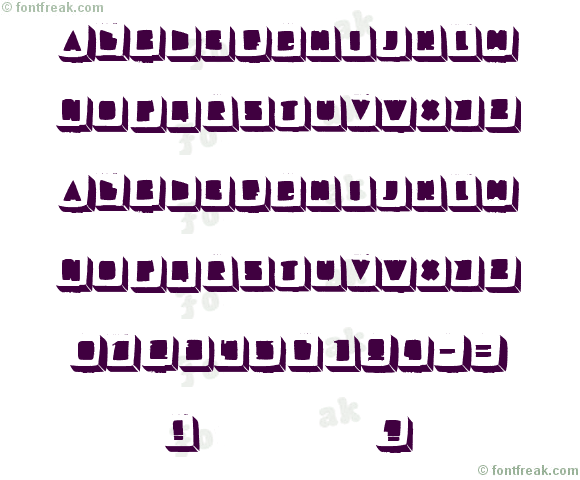
LaTortue
Discover the LaTortue font by Maelle.K, a distinctive display typeface that exudes a playful yet modern charm. This font is characterized by its bold, chunky letterforms that feature a unique three-dimensional effect, giving it a dynamic presence on the page. The stroke weight is consistent throughout, with subtle contrasts that enhance visibility while maintaining an approachable aesthetic. The spacing is generous, allowing each character to breathe, which contributes to its legibility.
LaTortue shines in various creative contexts. Its vibrant personality makes it an excellent choice for wedding invitations, where it can convey warmth and celebration. Additionally, this font is ideal for movie posters, particularly in family-oriented films, where its whimsical design can attract attention. Restaurant menus can also benefit from LaTortue, as it adds a touch of fun and creativity, perfect for casual dining establishments. Moreover, content creators looking to elevate their social media graphics will find this font to be a fantastic asset, injecting energy into their visual storytelling.
What sets LaTortue apart is its ability to blend personality with functionality. The font's unique aesthetic ensures that it stands out in crowded visual landscapes, making any project feel fresh and engaging. Whether you're crafting an eye-catching invitation or designing a lively poster, the LaTortue font free download is a must-have for anyone looking to add a touch of creativity and flair to their work.